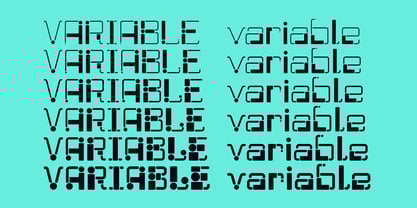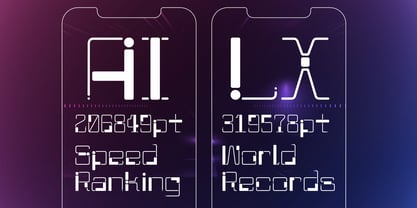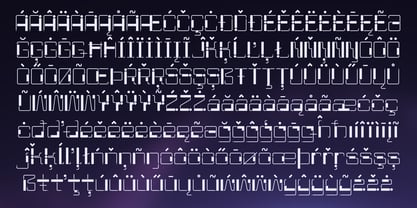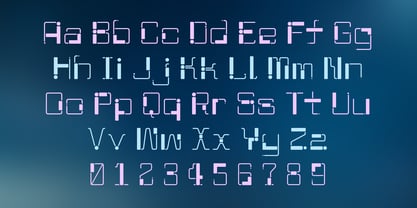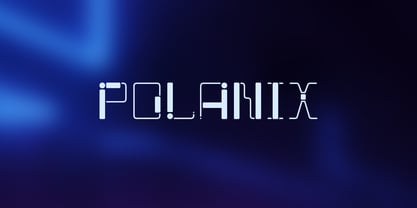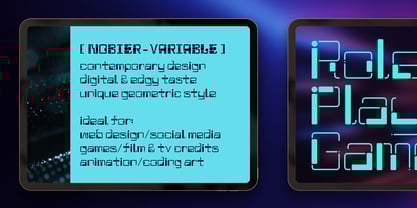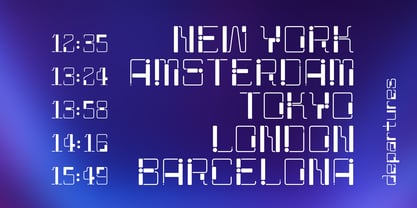
Polanix
by Outerend
The Polanix Font Family was designed by Taka Ikari and published by Outerend. Polanix contains 3 styles and family package options.
This unique geometric design will make your projects stand out from the crowd! If you're looking for a futuristic but with an edgy twist, "Polanix" could be the one. The interesting deformation of its variable version also works great with animation, game design and film/TV credits & titles as well as interface, app and web designs.
Designers: Taka Ikari
Publisher: Outerend
Foundry: Outerend
Design Owner: Outerend